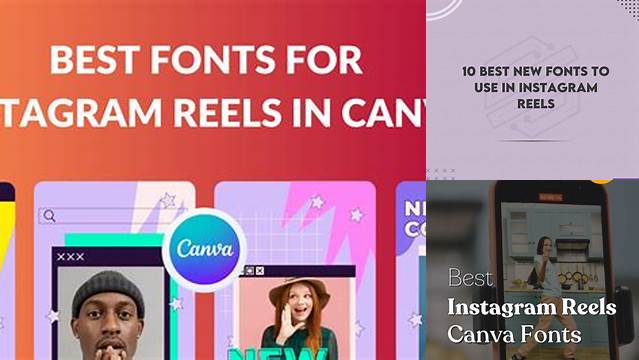
Cool Fonts On Instagram Reels: A Quick Guide
So, you want to spice up your Instagram Reels with some eye-catching fonts, huh? Well, you've come to the right place! Let's dive into how you can make your Reels stand out from the crowd with some seriously cool typography. Instagram Reels are all about grabbing attention quickly, and using unique fonts is a fantastic way to do just that. Think about it: everyone's scrolling through tons of Reels every day. What makes someone stop and watch yours? It could be your awesome editing skills, your hilarious content, or, yep, those killer fonts! Using different fonts can totally change the vibe of your Reel. A playful, bubbly font can make your content seem lighthearted and fun, while a bold, modern font can give it a more serious or stylish edge. It's all about matching the font to the message you're trying to convey. And the best part? It's not as complicated as you might think to get these cool fonts onto your Reels. There are several ways to achieve this, from using Instagram's built-in tools to exploring third-party apps that offer a wider range of options. We'll walk you through everything step by step, so you can start creating visually stunning Reels in no time. First off, let's talk about the basics. Instagram itself offers a few different font options, which are a good starting point if you're new to all this. To access these, simply create a Reel, add some text, and then tap on the font selector at the top of the screen. You'll see a handful of fonts to choose from, and you can play around with them to see which ones you like best. But, let's be honest, the fonts that Instagram provides are pretty basic, right? They're fine for simple captions or quick text overlays, but if you really want to make your Reels pop, you'll probably want to explore some other options. That's where third-party apps come in handy. These apps offer a much wider variety of fonts, as well as other cool features like text animations and customizable styles. Some popular options include apps like Canva, Adobe Creative Cloud Express, and Phonto. These apps allow you to create text graphics with your chosen fonts and then import them into your Reels. It might sound like a lot of work, but it's actually pretty straightforward once you get the hang of it. Plus, the results are totally worth it! Imagine using a retro-style font for a vintage-themed Reel, or a futuristic font for a tech-related video. The possibilities are endless! And hey, don't be afraid to experiment! Try out different fonts and see what works best for your content. The more you play around, the better you'll get at choosing fonts that perfectly complement your Reels. So go ahead, unleash your creativity and start creating some seriously eye-catching Reels with amazing fonts! You've got this!
Using Third-Party Apps for Unique Fonts
Alright, guys, let's get into the nitty-gritty of using third-party apps to get those seriously cool fonts onto your Instagram Reels. As we mentioned before, Instagram's built-in font options are a bit limited, so if you really want to make your Reels stand out, you'll need to venture outside the app. Don't worry, it's not as scary as it sounds! There are tons of awesome apps out there that offer a huge variety of fonts, as well as other cool features like text animations, customizable styles, and even pre-designed templates. These apps are like your secret weapon for creating visually stunning Reels that will grab your audience's attention. One of the most popular options is Canva. Canva is a graphic design app that's super easy to use, even if you're not a designer. It has a massive library of fonts to choose from, ranging from classic serif fonts to trendy script fonts to bold display fonts. You can also customize the size, color, and spacing of your text, as well as add effects like shadows and outlines. And the best part? Canva has a mobile app, so you can create your text graphics right on your phone. Another great option is Adobe Creative Cloud Express (formerly Adobe Spark Post). This app is similar to Canva in that it offers a wide variety of fonts and design tools. However, it's geared more towards creating social media graphics, so it has a lot of features that are specifically designed for Instagram Reels. For example, you can easily add animations to your text, create video collages, and even remove backgrounds from images. If you're looking for an app that's specifically focused on fonts, then Phonto is a great choice. Phonto is a simple but powerful app that allows you to add text to photos and videos. It has a huge library of fonts to choose from, and you can even install your own custom fonts. Phonto also has a lot of options for customizing your text, such as changing the size, color, spacing, and rotation. So, how do you actually use these apps to get fonts onto your Reels? The process is pretty similar for all of them. First, you'll need to create your text graphic in the app. This usually involves choosing a font, typing in your text, and then customizing the appearance of the text to your liking. Once you're happy with your text graphic, you'll need to save it as an image or video file. Then, you can import that file into your Reel. In Instagram Reels, add your video clip then tap the Add Media button, then select the text graphic you created in the third-party app. Position and resize the text graphic as needed, and you're good to go! Now, here's a pro tip: when you're choosing a font for your Reel, think about the overall aesthetic of your video. What kind of message are you trying to convey? Are you going for a fun and playful vibe, or something more serious and sophisticated? The font you choose should match the tone of your video. Also, make sure that your font is easy to read. Avoid fonts that are too thin or too ornate, as these can be difficult to read on a small screen. And finally, don't be afraid to experiment! Try out different fonts and see what looks best. The more you play around, the better you'll get at choosing fonts that perfectly complement your Reels. So go ahead, download a few of these apps and start experimenting with different fonts. With a little bit of practice, you'll be creating stunning Reels with unique typography in no time!
Step-by-Step Guide to Adding Fonts to Instagram Reels
Okay, let's break down the exact steps you need to follow to add those fantastic fonts to your Instagram Reels. We'll cover both using Instagram's built-in options and incorporating fonts from third-party apps. Don't worry, it's a breeze once you get the hang of it. First, let's start with Instagram's built-in fonts. This is the simplest method and a great place to start if you're new to all this. Open Instagram and start creating a new Reel. You can either record a new video directly within the app or upload a video from your camera roll. Once you have your video ready, tap the "Aa" icon to add text. A text box will appear on the screen, and you can start typing your message. Now, here's where the font magic happens. At the top of the screen, you'll see a row of different font options. These are the fonts that Instagram provides by default. Tap on each font to see how it looks with your text. You can also adjust the size, color, and alignment of your text using the options at the bottom of the screen. Once you're happy with your text, you can drag it around the screen to position it where you want it. You can also use two fingers to pinch and zoom to resize the text. And that's it! You've successfully added text to your Reel using Instagram's built-in fonts. But what if you want to use a font that's not available in Instagram? That's where third-party apps come in. As we discussed earlier, apps like Canva, Adobe Creative Cloud Express, and Phonto offer a much wider variety of fonts. To use these apps, you'll first need to create your text graphic in the app. This usually involves choosing a font, typing in your text, and then customizing the appearance of the text to your liking. Once you're happy with your text graphic, you'll need to save it as an image or video file. Then, you can import that file into your Reel. In Instagram Reels, tap the Add Media button, then select the text graphic you created in the third-party app. Position and resize the text graphic as needed. You can also add animations or effects to your text graphic using the third-party app before importing it into your Reel. For example, you could add a fade-in effect, a bounce effect, or a spinning effect. These effects can really help to make your text stand out and grab attention. Another tip is to use different fonts for different parts of your text. For example, you could use a bold font for the main heading and a more subtle font for the body text. This can help to create a visual hierarchy and make your text more readable. And finally, don't be afraid to experiment with different font combinations. Try pairing different fonts together to see what looks good. You might be surprised at what you discover! So there you have it: a step-by-step guide to adding fonts to your Instagram Reels. Whether you're using Instagram's built-in fonts or fonts from third-party apps, the key is to have fun and experiment. The more you play around, the better you'll get at creating visually stunning Reels with amazing typography.
Choosing the right font for your Instagram Reels can feel like a small detail, but it can actually make a huge difference in how your content is perceived. The font you choose can affect the overall tone and style of your Reel, and it can even influence whether or not people stop to watch it. So, how do you choose the right font? Here are a few tips to help you out. First, consider your brand. What is your brand's personality? Are you fun and playful, or serious and sophisticated? Your font should reflect your brand's personality. If you have a fun and playful brand, you might choose a bubbly or whimsical font. If you have a more serious and sophisticated brand, you might choose a classic serif font. Next, think about your target audience. Who are you trying to reach with your Reels? What kind of fonts do they like? If you're targeting a younger audience, you might choose a trendy or modern font. If you're targeting an older audience, you might choose a more traditional font. Also, think about the message you're trying to convey. What are you trying to say with your Reel? Is it a serious message or a lighthearted one? Your font should match the tone of your message. If you're conveying a serious message, you might choose a bold or impactful font. If you're conveying a lighthearted message, you might choose a playful or whimsical font. Readability is key. No matter what font you choose, make sure it's easy to read. Avoid fonts that are too thin, too ornate, or too small. Your text should be legible on a small screen, even when people are scrolling quickly. Contrast is also important. Make sure your text contrasts well with the background of your Reel. If you have a dark background, use a light-colored font. If you have a light background, use a dark-colored font. This will help to make your text stand out and be more readable. Don't be afraid to experiment with different font combinations. Try pairing different fonts together to see what looks good. You might be surprised at what you discover! For example, you could pair a bold heading font with a more subtle body font. Or you could pair a serif font with a sans-serif font. Just make sure that the fonts you choose complement each other and don't clash. Consider the platform. Keep in mind that some fonts may not display properly on all devices or platforms. Before you commit to a font, test it out on different devices to make sure it looks good. Using cool fonts on Instagram Reels can really elevate your content, making it more engaging and visually appealing. And remember, consistency is key! Once you've chosen a font, stick with it. Using the same font consistently will help to create a cohesive look and feel for your brand. So there you have it: a few tips for choosing the right font for your Instagram Reels. By following these tips, you can choose fonts that are both visually appealing and effective at communicating your message. Go ahead, give it a try and see how cool fonts can take your Reels to the next level!
Examples of Cool Fonts to Use
Okay, so you're ready to dive into the world of cool fonts for your Instagram Reels, but you're not sure where to start? Don't worry, we've got you covered! Here are a few examples of fonts that are sure to make your Reels stand out. First up, we have Bebas Neue. This is a classic sans-serif font that's known for its clean lines and modern look. It's a great choice for headings and titles, and it works well with a variety of different content types. Next, we have Montserrat. This is another popular sans-serif font that's similar to Bebas Neue, but it has a slightly softer and more rounded feel. It's a great choice for body text, as it's easy to read and doesn't distract from the main message. If you're looking for something a little more unique, try Playfair Display. This is a beautiful serif font that's perfect for adding a touch of elegance and sophistication to your Reels. It's a great choice for fashion, beauty, and lifestyle content. Another great option is Raleway. This is a versatile sans-serif font that works well for both headings and body text. It has a clean and modern look, and it's easy to read on a variety of different devices. If you're looking for a font that's a little more playful and fun, try Luckiest Guy. This is a hand-drawn font that's perfect for adding a touch of personality to your Reels. It's a great choice for kids' content, DIY projects, and anything else that's lighthearted and fun. For a vintage vibe, consider Lobster. This is a script font that has a retro feel. It's a great choice for adding a touch of nostalgia to your Reels. It's perfect for vintage-themed content, throwback videos, and anything else that celebrates the past. Impact is a bold and attention-grabbing font that's perfect for making a statement. It's a great choice for headlines, calls to action, and anything else that you want to stand out. If you're looking for something a little more modern and edgy, try Oswald. This is a sans-serif font that has a strong and geometric feel. It's a great choice for tech content, sports videos, and anything else that's cutting-edge. These are just a few examples of the many cool fonts that you can use on your Instagram Reels. The best way to find the perfect font for your Reels is to experiment and see what looks good. Try out different fonts and see how they look with your content. Don't be afraid to mix and match different fonts to create a unique and eye-catching look. And most importantly, have fun! Choosing fonts should be a creative and enjoyable process. So go ahead, unleash your creativity and start creating some stunning Reels with amazing fonts! You've got this!